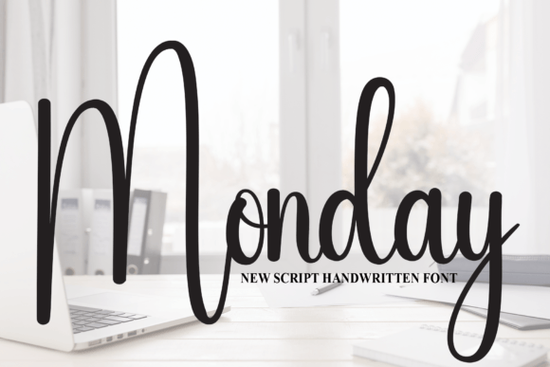
If you're looking for a handwritten font that feels warm, approachable, and genuinely natural, Monday Font is worth a close look. Created by a designer who understands the value of subtle imperfections, this sweet and friendly script brings a relaxed, personal touch to any project. It’s the kind of typeface that makes wedding invitations feel intimate, greeting cards feel authentic, and small business branding feel human without trying too hard.
What makes Monday Font different from other handwritten fonts?
Most handwritten fonts fall into one of two camps: overly perfect (like a computer tried to imitate handwriting) or so messy they’re hard to read. Monday Font strikes a balance. The letterforms are consistent enough to be legible in body text or short headlines, yet they keep a bouncy, uneven rhythm that feels human. It’s ideal for designs that need a soft, inviting voice think save-the-date cards, menu boards, or product labels for handmade goods.
How can I use Monday Font for print‑on‑demand products?
Print‑on‑demand sellers will appreciate how versatile this font really is. Its friendly curves work well on everything from cozy apparel to home decor. For instance:
- Custom mugs and tumblers – Add a short phrase or a name in Monday Font for a personal feel.
- Tote bags and pouches – Use it for simple wordmarks or playful quotes.
- Wall art prints – Pair it with a subtle floral illustration for a modern farmhouse look.
- Notebooks and planners – The font’s relaxed nature makes it perfect for inspirational covers or section titles.
The typeface also pairs nicely with sans‑serif fonts for a clean contrast try a simple geometric sans for the body text and let Monday Font shine in the headline.
What projects work best with this font?
Because Monday Font is both sweet and relaxed, it excels in projects that need a soft, feminine, or nostalgic touch. Here are a few practical ideas:
- Wedding stationery – From engagement announcements to thank‑you notes, the font adds a handmade feel without being too decorative.
- Event flyers – For baby showers, birthday parties, or bridal showers, it helps the design feel festive but not chaotic.
- Digital planners and journals – The legibility at small sizes makes it a reliable choice for headers and accent quotes.
- Social media graphics – Combine it with a calm background photo for Instagram quotes or sale announcements.
If you’re working on a product that will be printed or shared digitally, always test the font at your intended size Monday Font reads well at 12 pt and above, but larger sizes really let its character shine.
How to pair Monday Font with other fonts
Finding the right companion font can elevate any design. Monday Font is a script, so it pairs well with simple, readable typefaces. For a playful but clean look, try combining it with Thick Font a bold sans‑serif that grounds the softness. If you want something more delicate, Absolute Beginner Font offers a casual hand‑drawn feel that complements Monday Font without competing.
For projects that need a modern, minimal contrast, Nothing Over Font brings a clean geometric style. If you’re designing for a more reflective or introspective theme, Overthinker Font adds a thoughtful, slightly edgy vibe that works well in quotes or headers. And for a truly romantic touch, Wonderful Butterfly Font is a lovely decorative script that can take the lead while Monday Font handles supporting text.
One simple rule: let Monday Font be the star, and keep the second font understated use it for body copy or secondary lines only.
What’s the best way to get started with Monday Font today?
If you’re ready to try it, here’s a short checklist to make the most of this font in your next project:
- Download a preview – Before purchasing, test Monday Font in your design software to see how it looks with your specific layout.
- Try it in a print template – Use the font in a mockup for a card or t‑shirt to gauge readability and spacing.
- Pair it with a simple sans‑serif – As mentioned, contrast is key. Keep a clean font like Absolute Beginner Font’s script collection handy for quick pairing.
- Check the uppercase and lowercase – Monday Font has alternates and ligatures in many design apps; exploring those can give your project a custom feel.
- Use it in the Creative Fabrica class – Remember that Monday Font is part of the Making Custom Coozies Perfect For All Events class. Follow along to see real‑world application ideas.
For further inspiration, you might explore thick script font styles for bold pairings, or check out Nothing Over Font’s script versions for a different take on minimal design. And if you’re working on a project that requires a thoughtful, understated voice, Overthinker Font’s script options offer a great alternative. Finally, Wonderful Butterfly Font’s script family is always a solid go‑to for decorative accents.
Try Monday Font on one small project this week a single greeting card, a mug design, or a social post and see how its friendly personality connects with your audience. That hands‑on test is the best way to decide if it’s the right fit for your creative toolbox.